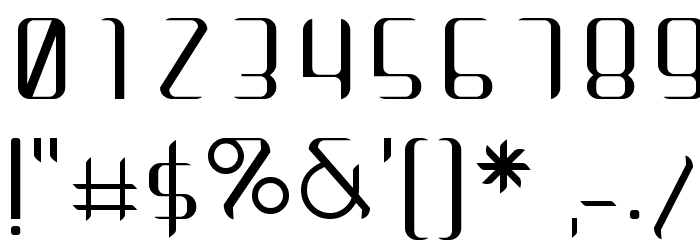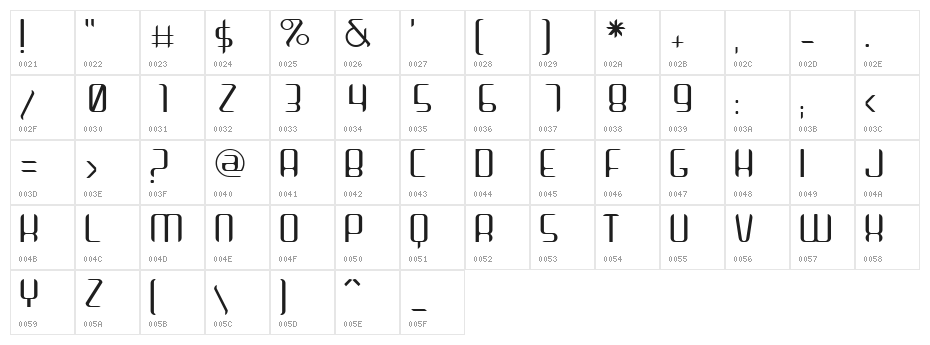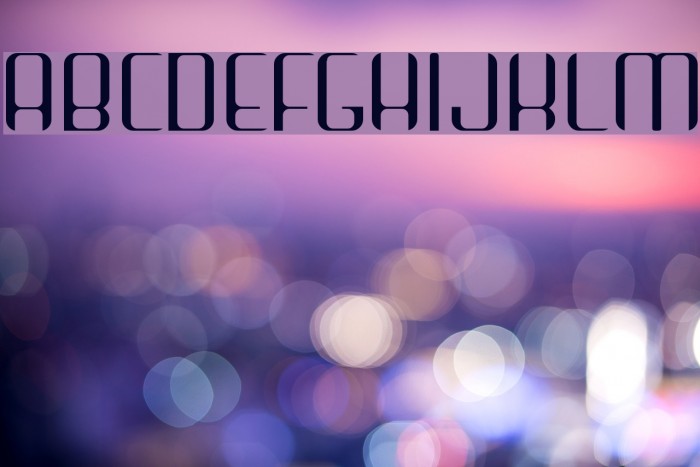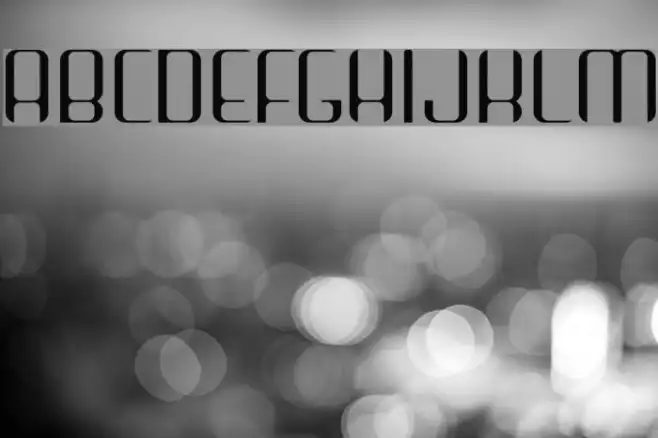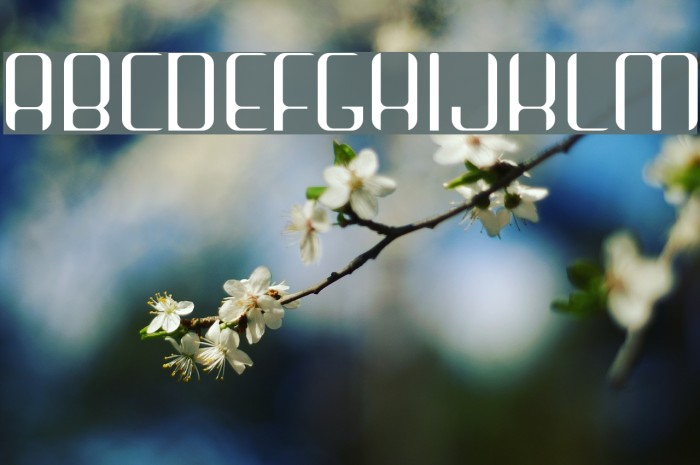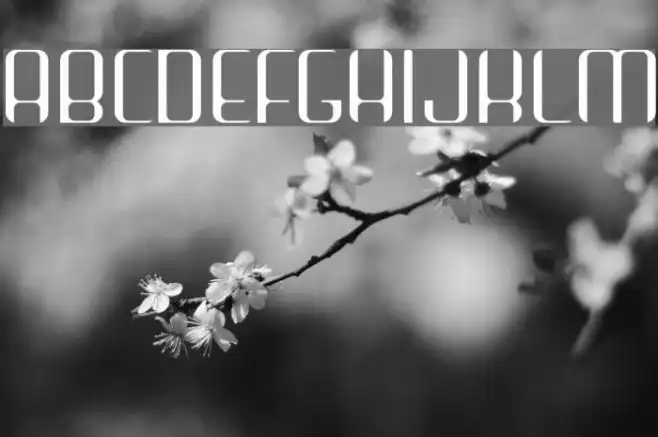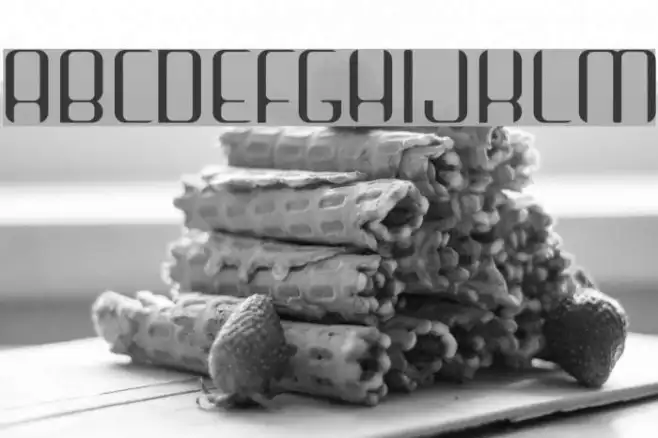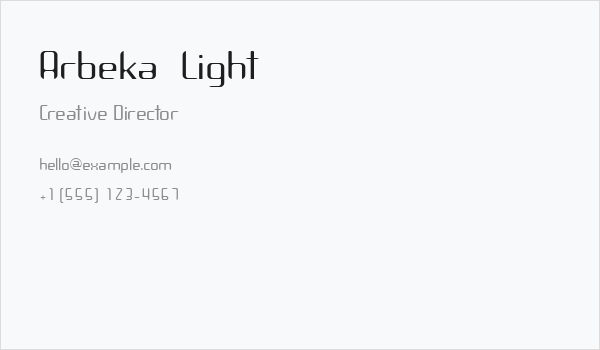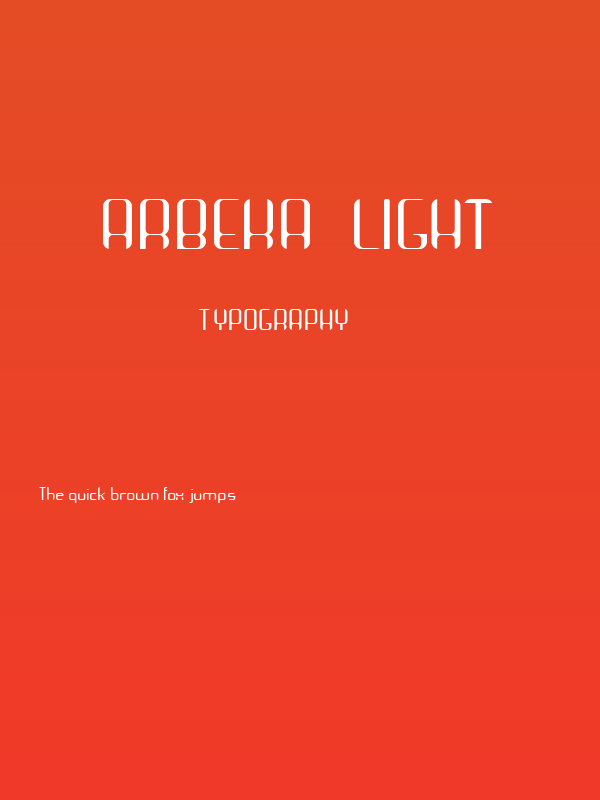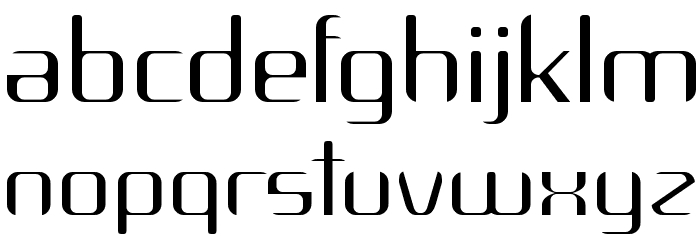
Arbeka Light Font
Arbeka Light Description
This font features a sleek, modern design with a geometric structure. The characters are elongated with rounded edges, giving it a futuristic and clean appearance. The uppercase letters are uniform in height, while the lowercase letters maintain a consistent baseline, enhancing readability. The numerals are distinct and align well with the overall style, making them suitable for digital displays. Special characters are crafted with the same attention to detail, ensuring they integrate seamlessly with the alphabetic characters. The font's light weight and minimalistic design make it ideal for contemporary projects.
| Proposed Projects | Ideal for tech branding, digital interfaces, and modern advertising campaigns. |